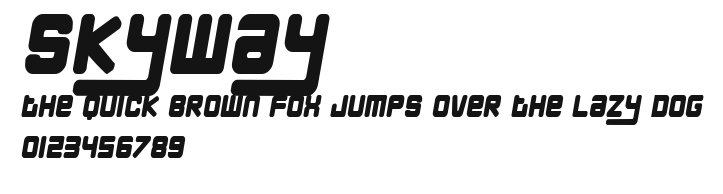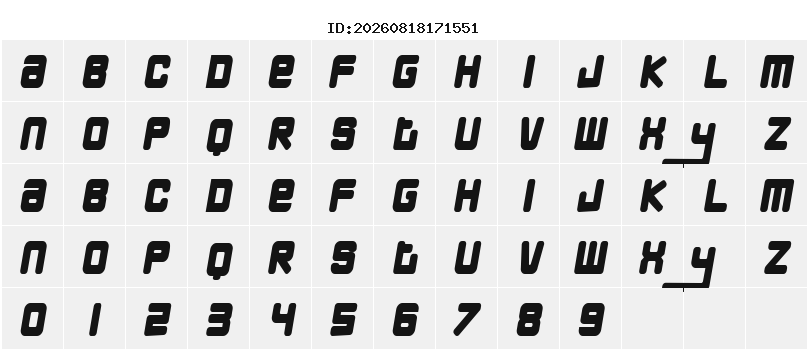
Skyway Preview
• Font Name: Skyway
• Full Font Name: Skyway
About Skyway.ttf
Skyway.ttf is a modern, elegant sans-serif font designed for ultimate readability and visual harmony. Perfect for branding, headlines, web design, and print materials.